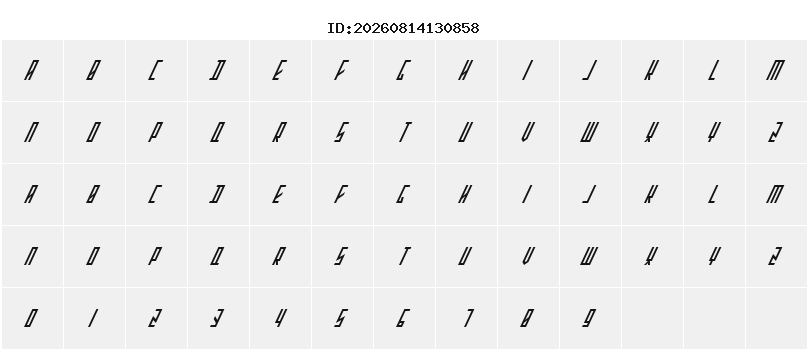
• Font Name: Stretched Electrons
• Designer: Darrell Flood
About Stretched Electrons.otf
Stretched Electrons.otf is a modern, elegant sans-serif font designed for ultimate readability and visual harmony. Perfect for branding, headlines, web design, and print materials.